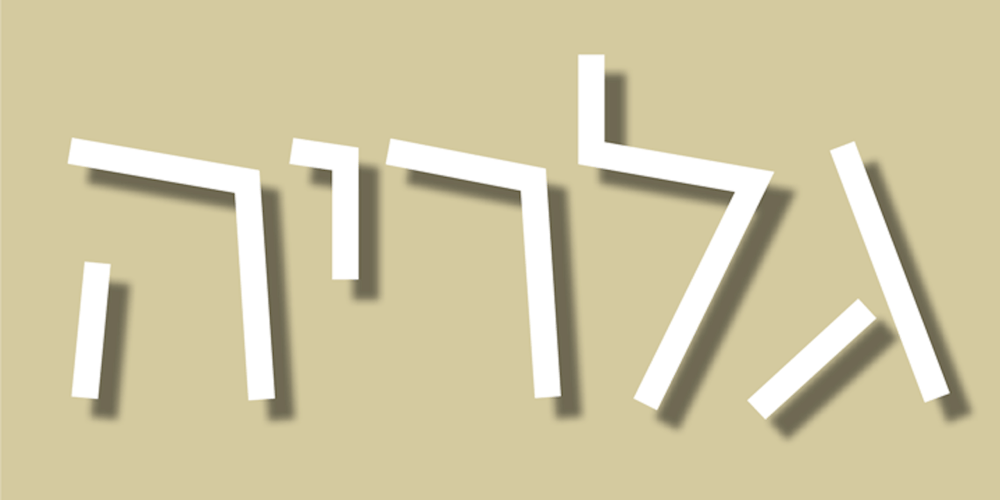
Sticks MF Font Family was designed by Omer Peleg and published by Masterfont. Sticks MF contains 1 styles and family package options. Light, funny and cute strokes will make up a smiling text.